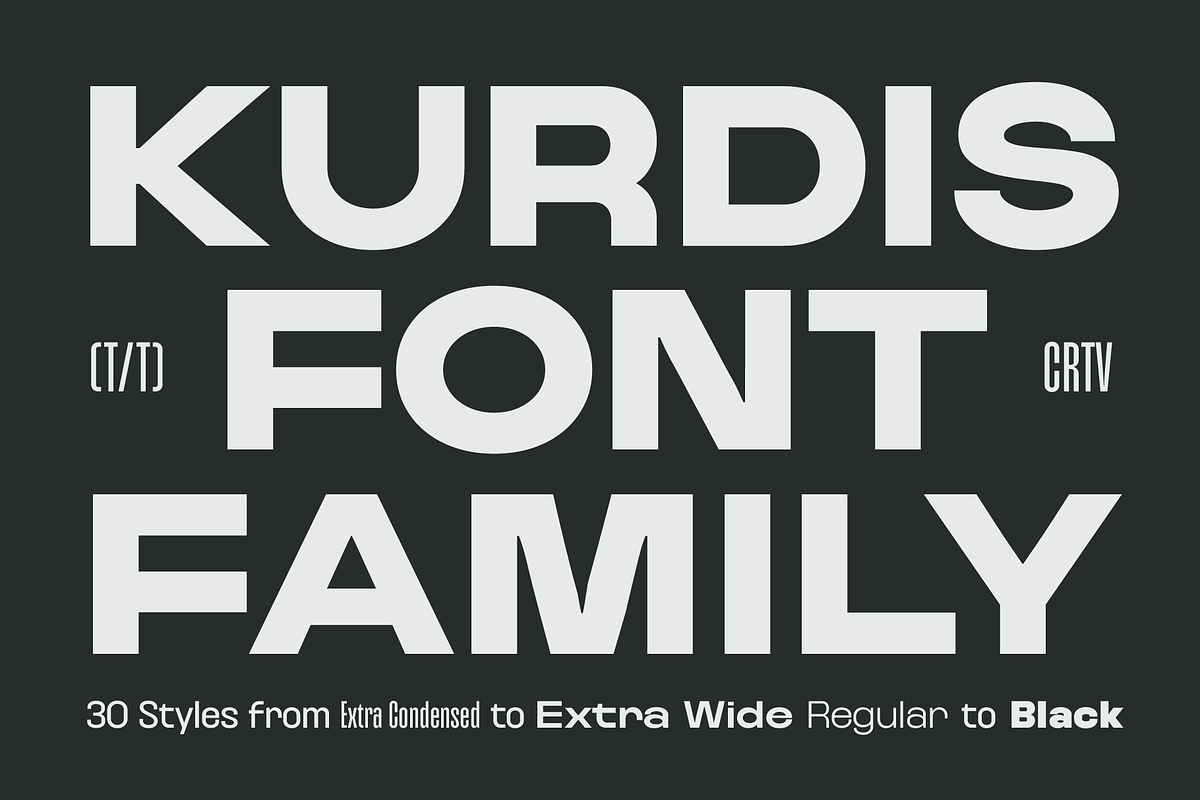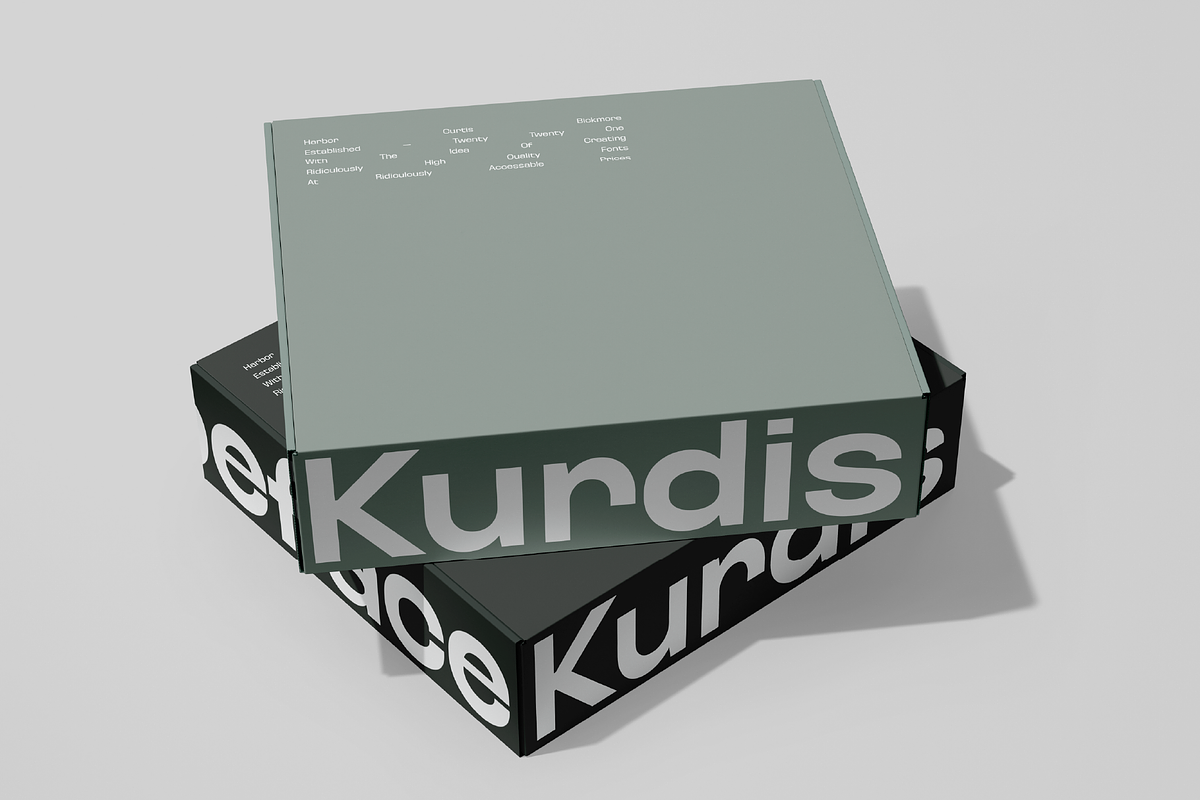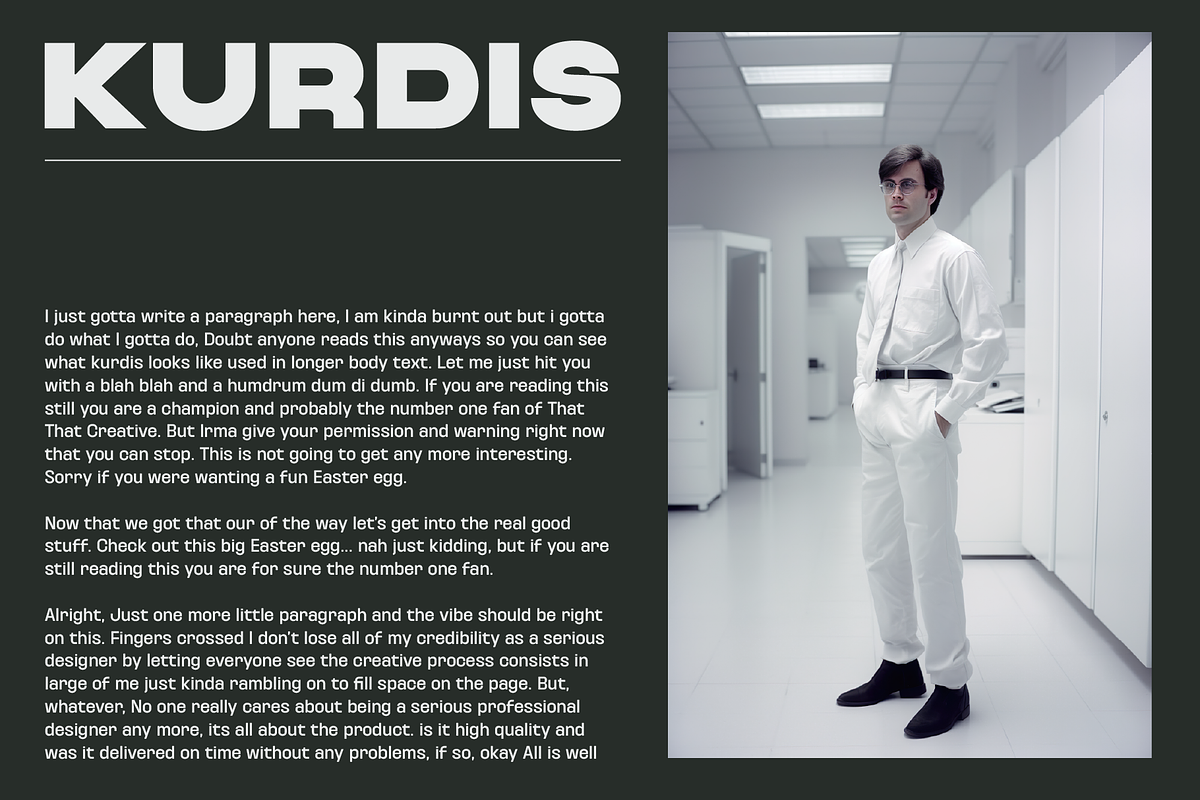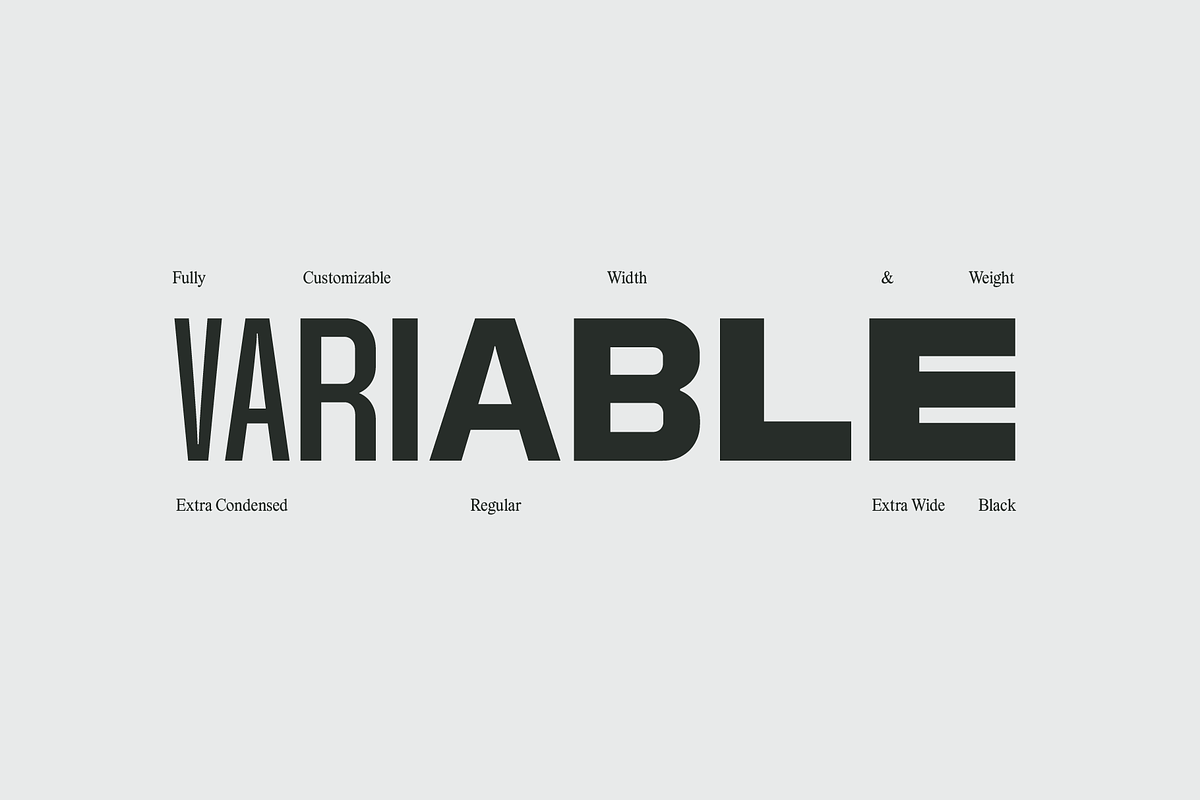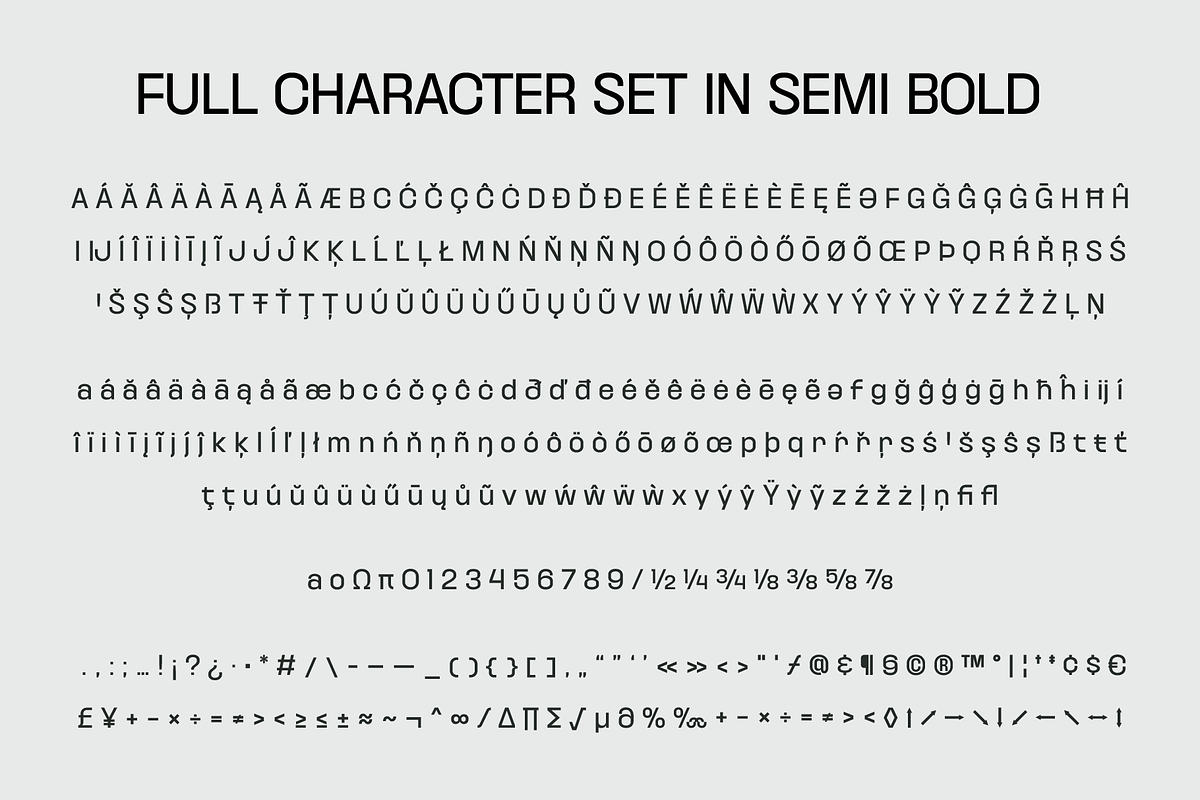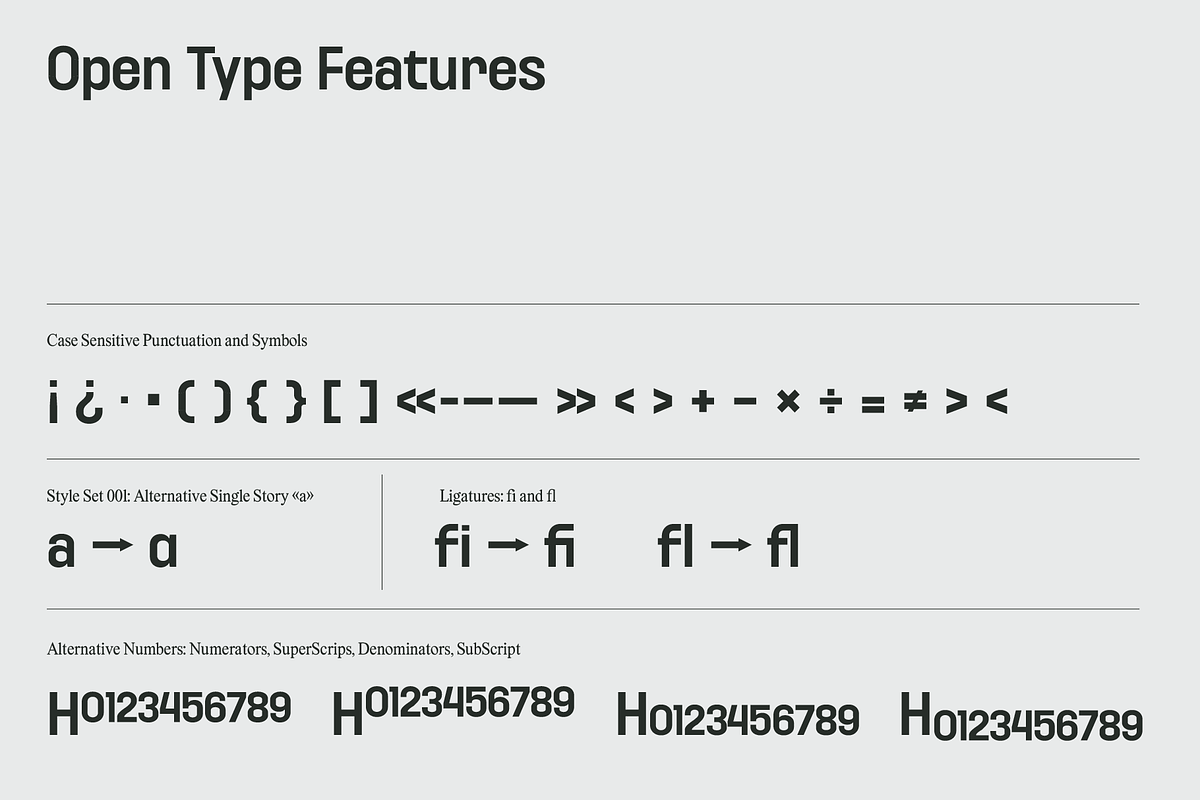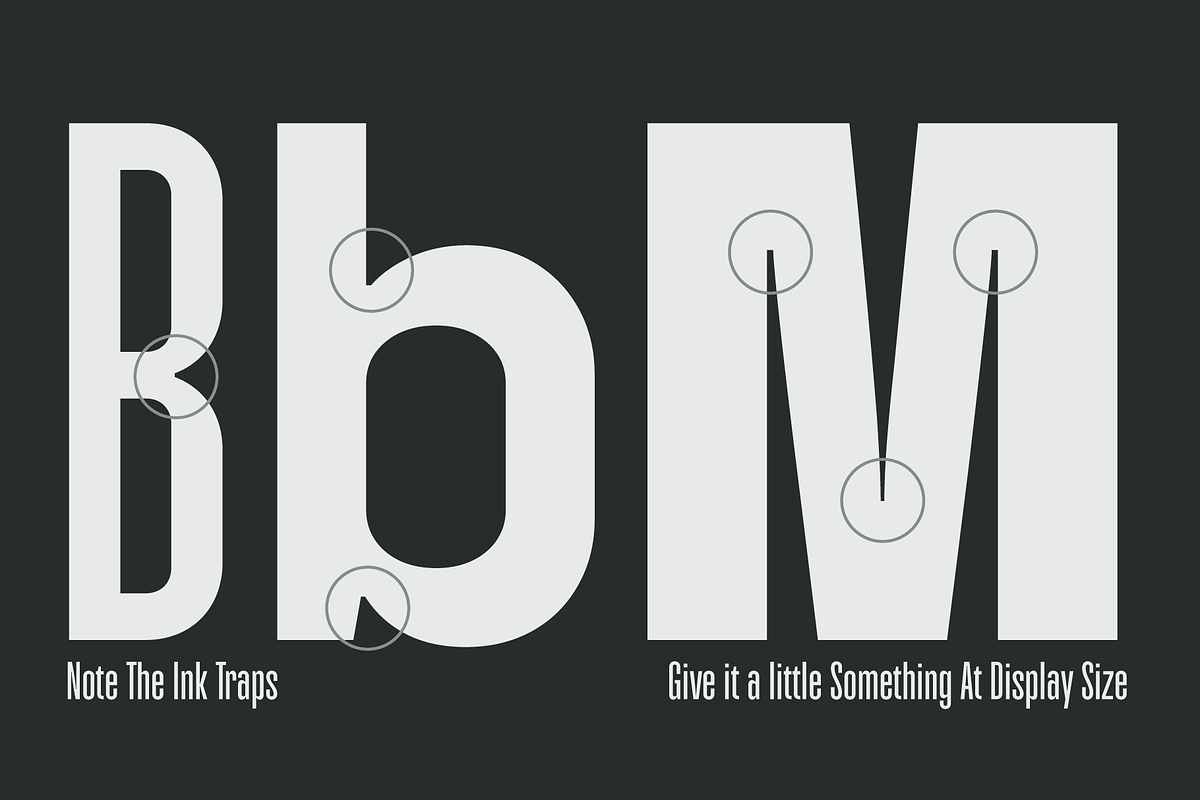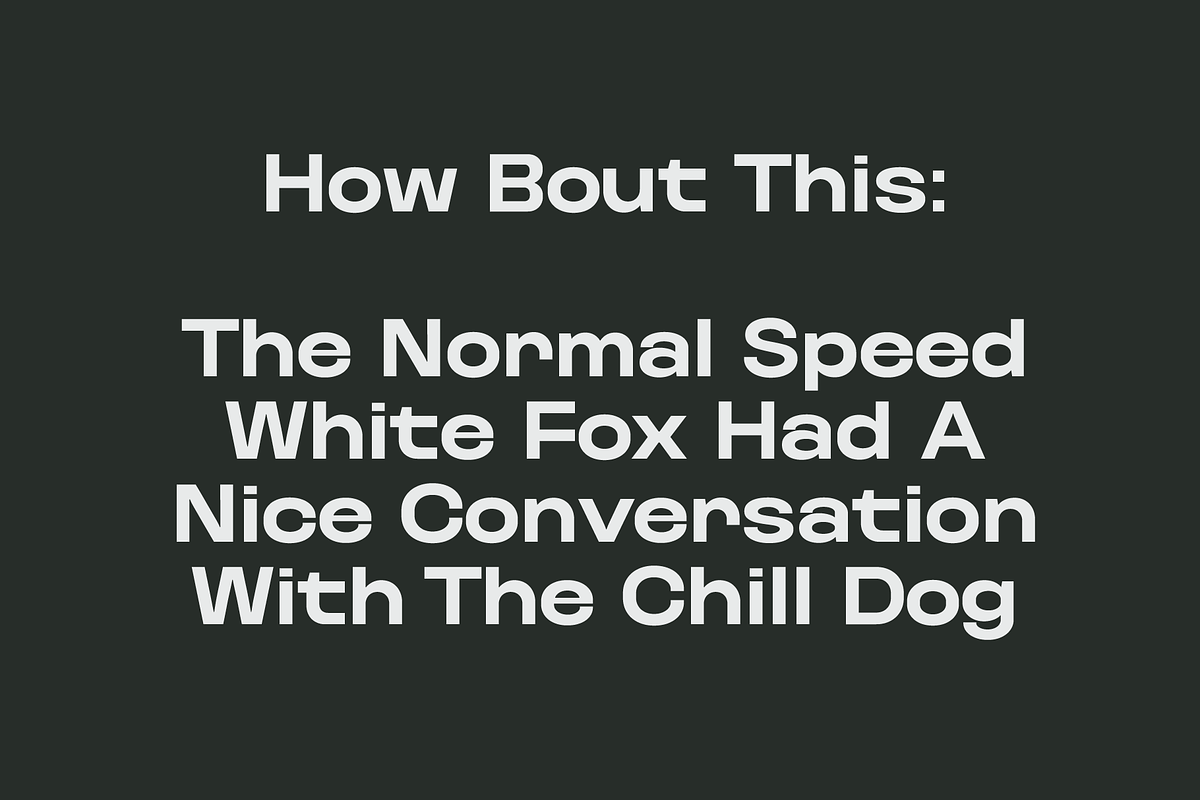
Kurdis Font Family (30 Styles)
Kurdis Varibel Font Family is a modern sans serif family with six widths and five Weights Making 30 Set Styles and of course 10,000 more combinations when considering the Variable options. This Typeface is a real work horse for titles. At its condensed Width it is sophisticated and professional with well considered ink traps that help it really stand out at Large Sizes. the Regular width works well for longer bodies of text on websites or posters and the Wide Styles give an elevated look to your average wide sans serif.